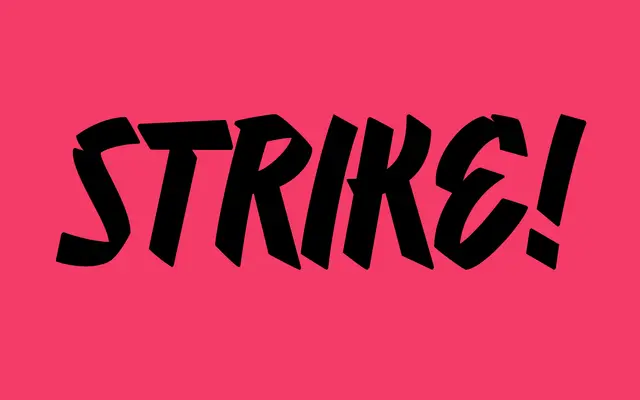
Strike
A typeface from Danish foundry Playtype with a strong character, suited to editorial and display contexts.
Published by Copenhagen-based Playtype, Strike carries the kind of distinct personality the foundry typically brings to its display releases. The page offers little technical detail, but the evocative copy suggests a typeface built for contexts where voice and presence matter. Best considered for editorial headlines and campaign work where character is the point.
The sparse page content and Playtype's typical design sensibility suggest a display-oriented typeface with strong personality, though limited information makes precise subclassification difficult.